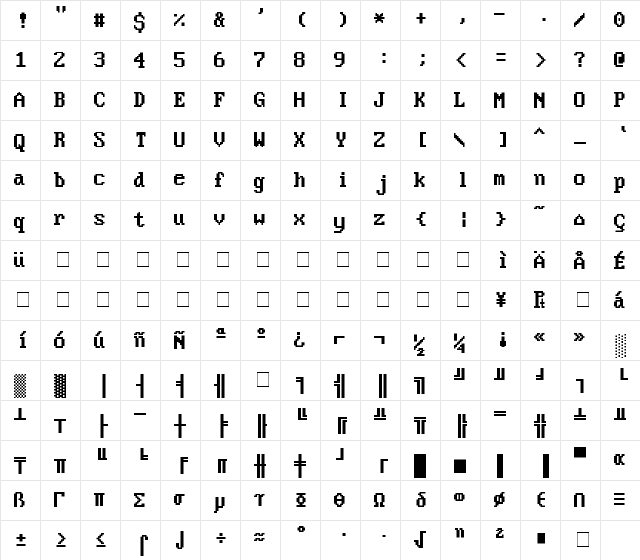
Video Terminal Screen Regular
Design Context for Video Terminal Screen Typeface
Video Terminal Screen takes a measured approach to typography — its balanced proportions and neutral character make it a reliable workhorse for both digital and print work.